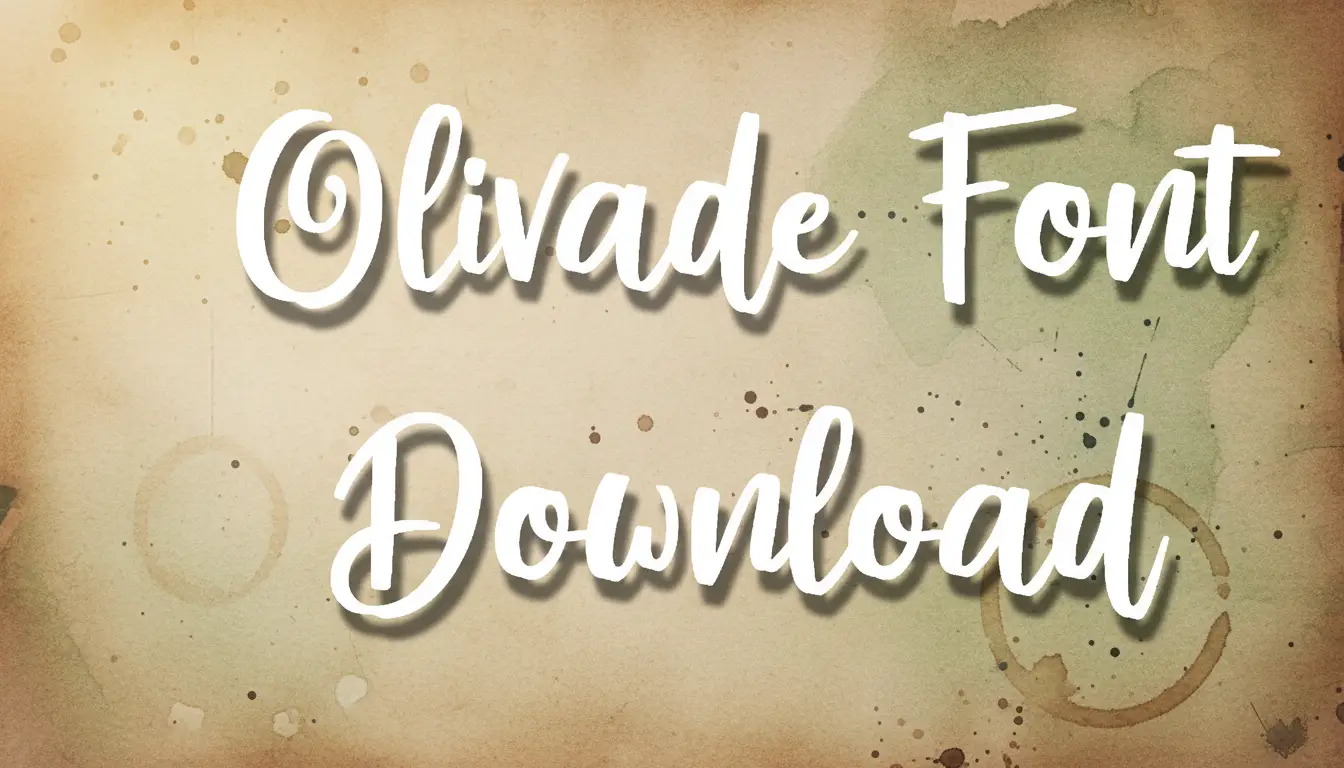
Olivade Font
Olivade is a script font created by Akhmad Reza Fauzi and released through Grezline Studio. It has that hand-lettered, flowing feel people look for when regular type seems too stiff. You can download it for free and test it with your own words in the preview above.
- Designer: Akhmad Reza Fauzi
- Publisher: Grezline Studio
What You Can Type With Olivade
You get every letter from A to Z in both cases and all the numbers from 0 to 9, which means Olivade can handle full sentences, dates and prices. Everyday marks like &, !, ? and @ are there too. Thanks to its accented letters, it also works for Spanish, French, German, Portuguese and Italian, not just English.
Where Olivade Works Best
Think of Olivade for wedding invitations, logos and signature-style headings. Script fonts read best in short bursts, so keep it to names, titles and one-line quotes. Skip all caps: script capitals are drawn to start a word, not to fill one.
Does Olivade support accented letters?
Yes. Olivade includes the accented letters needed for Spanish, French, German, Portuguese and Italian, so it works for more than just English.